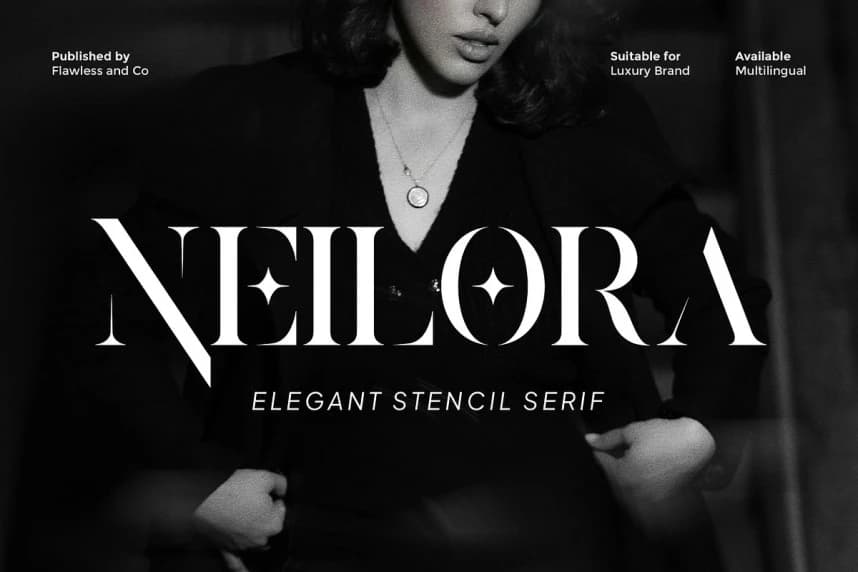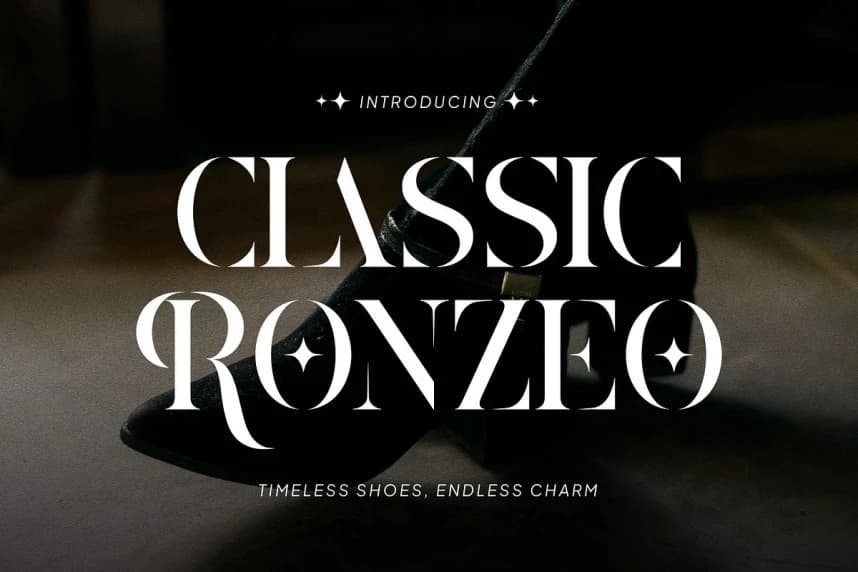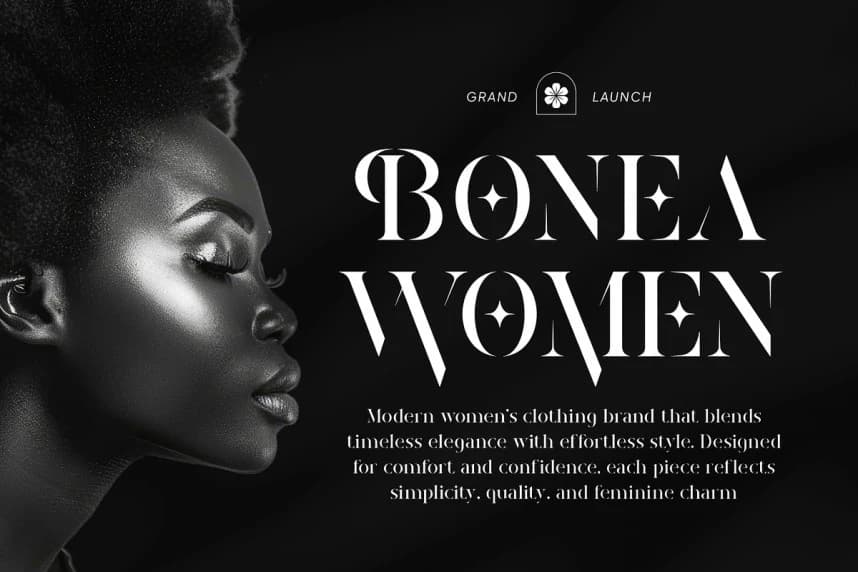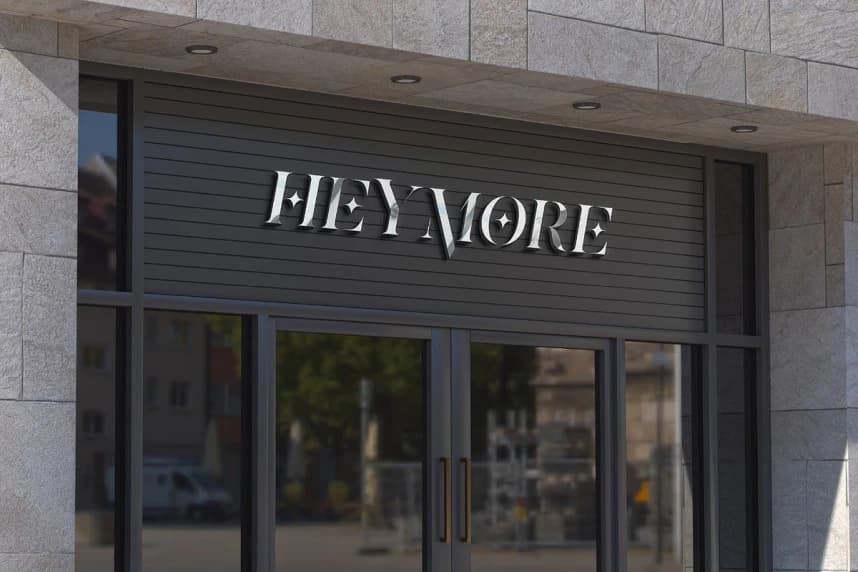
Neilora Font
Neilora Font is an elegant stencil serif typeface crafted to elevate luxury branding with a distinctive and refined character. Combining classic serif elegance with modern stencil cuts, Neilora creates a unique visual identity that feels exclusive